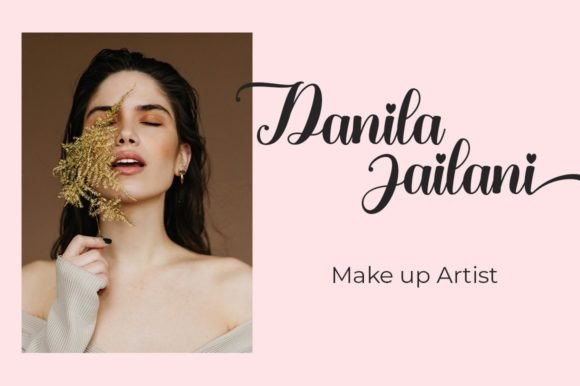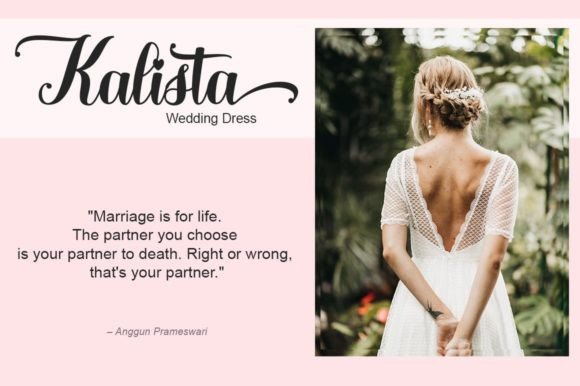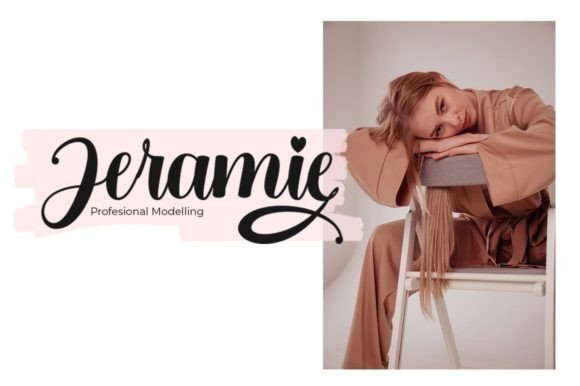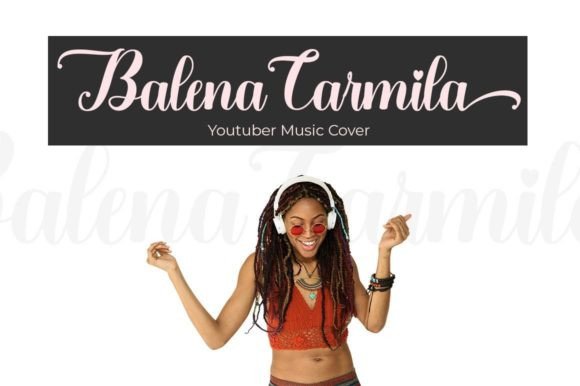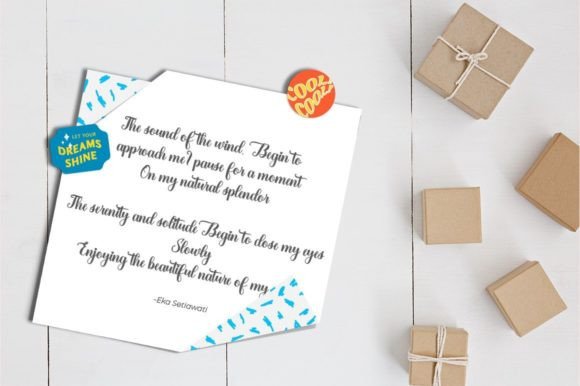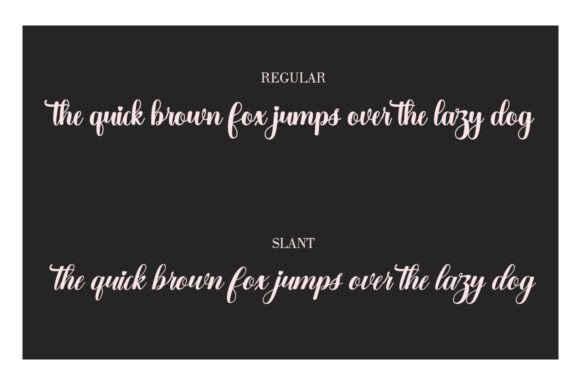
Introducing Anabele Font: The Modern Calligraphy Style for Creative Projects
Are you a designer, crafty person, or someone who loves creating unique content? Look no further than Anabele Font, a modern and casual calligraphy font that can elevate your projects to the next level. In this article, we’ll dive into the world of Anabele Font, exploring its features, uses, and benefits for various creative endeavors.
What is Anabele Font?
Anabele Font is a beautifully crafted calligraphy font that exudes a sense of modernity and casual elegance. Its unique style makes it perfect for a wide range of applications, from logos and product packaging to wedding invitations, branding, headlines, labels, signatures, book covers, posters, quotes, and more.
Key Features of Anabele Font
- Modern and Casual Style: Anabele Font boasts a fresh and contemporary look, making it ideal for designers and crafters who want to add a touch of sophistication to their work.
- Versatile: This font can be used for various purposes, from digital projects to print materials, and its flexibility ensures that it will fit seamlessly into your creative vision.
- Elegant and Readable: Anabele Font features beautiful, flowing lines that make it easy to read and understand, even at smaller font sizes.
Uses of Anabele Font
Anabele Font’s versatility is one of its standout features. Here are some of the many ways you can use this amazing font:
- Wedding Invitations and Stationery: Add a touch of romance and whimsy to your wedding invitations, save-the-dates, and other stationery.
- Product Packaging: Stand out on store shelves with eye-catching packaging that features Anabele Font.
- Headlines and Titles: Use Anabele Font to create stunning headlines and titles for your blog posts, articles, and social media content.
- Signatures and Labels: Add a personal touch to your emails, documents, and product labels with Anabele Font.
- Book Covers and Posters: Create visually stunning book covers and posters that grab attention and leave a lasting impression.
- Quotes and Inspirational Content: Share your favorite quotes and inspirational messages with Anabele Font’s elegant and readable style.
Benefits of Using Anabele Font
So, why choose Anabele Font for your creative projects? Here are just a few benefits:
- Unique and Creative: Stand out from the crowd with Anabele Font’s unique and creative style, which will set your work apart from others.
Anabele Font is a versatile and modern calligraphy font that can elevate your creative projects to new heights. With its elegant and readable style, Anabele Font is perfect for designers, crafters, and anyone looking to add a touch of sophistication to their work. Whether you’re creating logos, product packaging, wedding invitations, or social media content, Anabele Font is the perfect choice. So why wait? Download Anabele Font today and start creating stunning content that leaves a lasting impression!